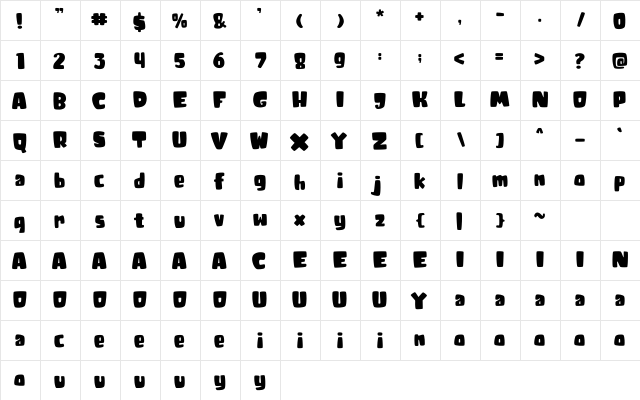
Tricky Jimmy Regular
| Foundry | Tokokoo Std |
| Designer | Sahirul |
Design Context for Tricky Jimmy Typeface
Tricky Jimmy is a composed and adaptable typeface that performs quietly and consistently across a wide range of design contexts.